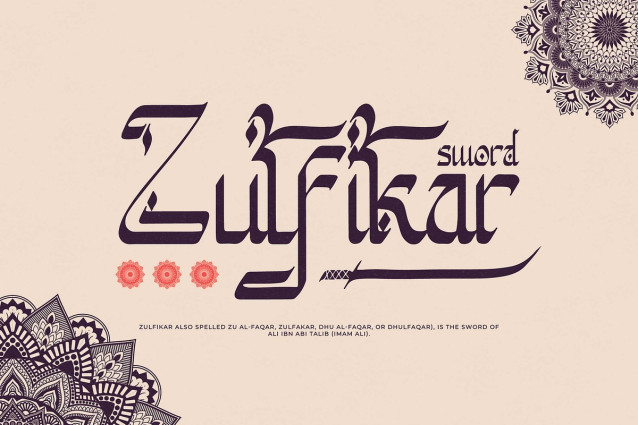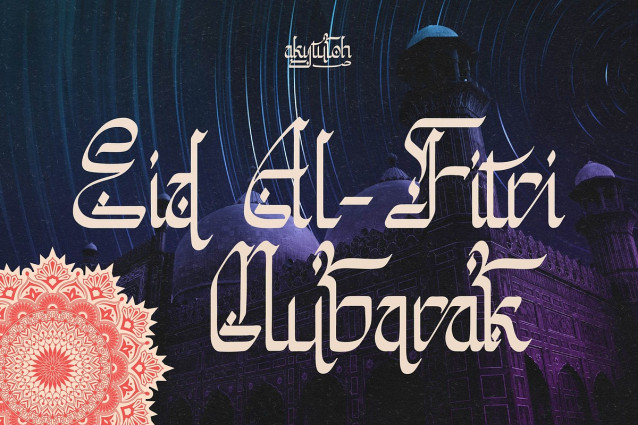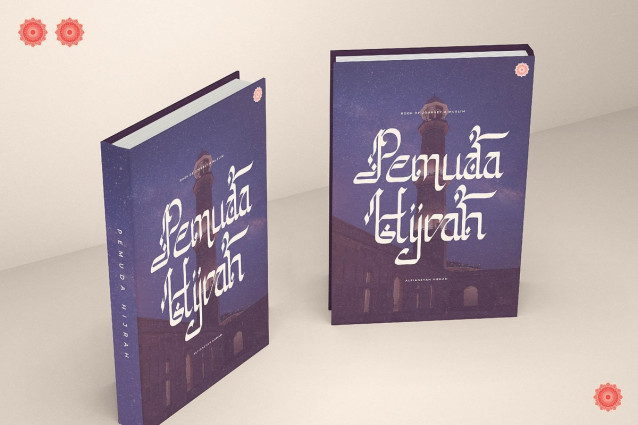
Akytuloh Font
Akytuloh Font | Arabic Font Style, from Denustudios, suitable for any projects such as: logos, branding projects, homeware designs, product packaging, mugs, quotes, posters, shopping bags, t-shirts, book covers, name card, invitation cards, greeting cards, label, photography, watermark, special events, and all your other lovely projects that need a Arabic Font Style taste.